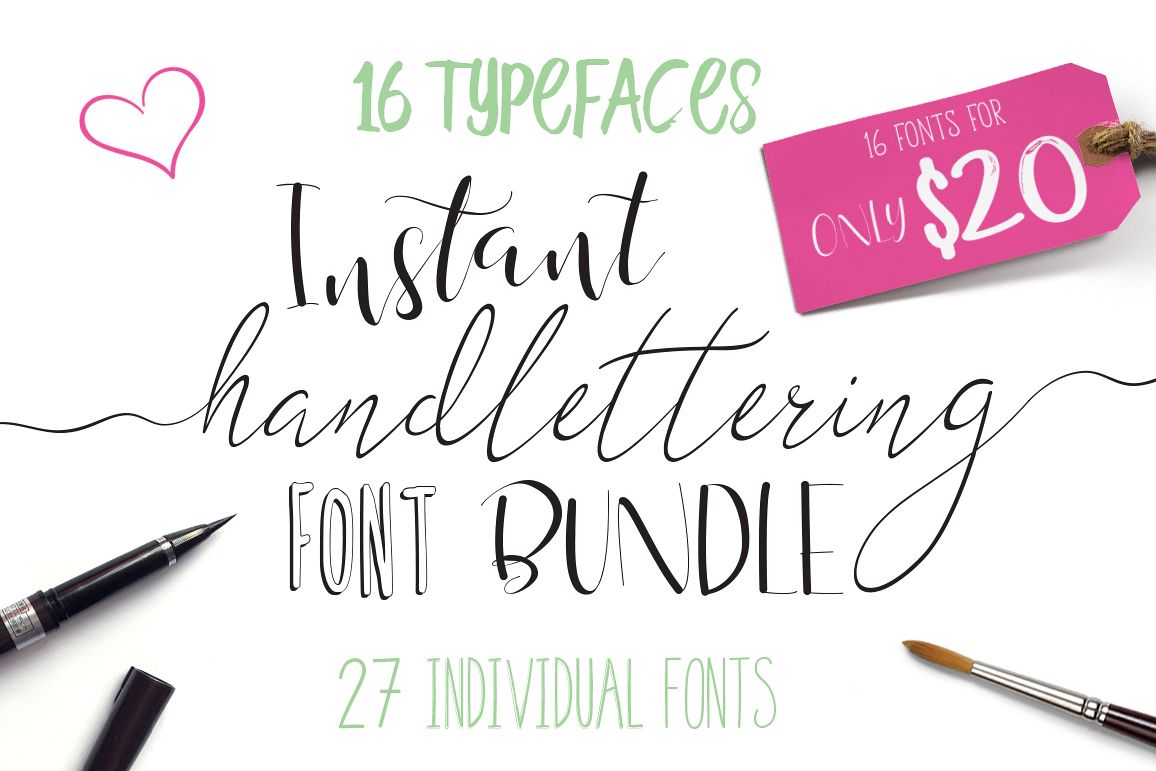
Font Bundle - Instant Hand Lettering
I've included 10 brand spanking new hand lettered fonts ranging from calligraphy to marker brush lettering.There are actually 27 individual fonts included in this crazily low priced bundle - many have alternates and ligatures and some have different weights or styles and all have international glyphs included!
• City Lights - NEW!
• Marvellous - NEW and 4 weights
• Marvellous Serif - NEW and 4 weights
• Flowergirls - NEW!
• Featherly Tall - NEW!
• Survivor - NEW!
• Strawberry - NEW!
• Finesse - NEW!
• Dreamers - NEW!
• Thank You - NEW and 2 fonts
• Mistress Benedict
• Humble Hearts
• Hide Away - 2 weights (PLUS a download link to freebies)
• Happy Girl
• Sunset Hill
• Rebel